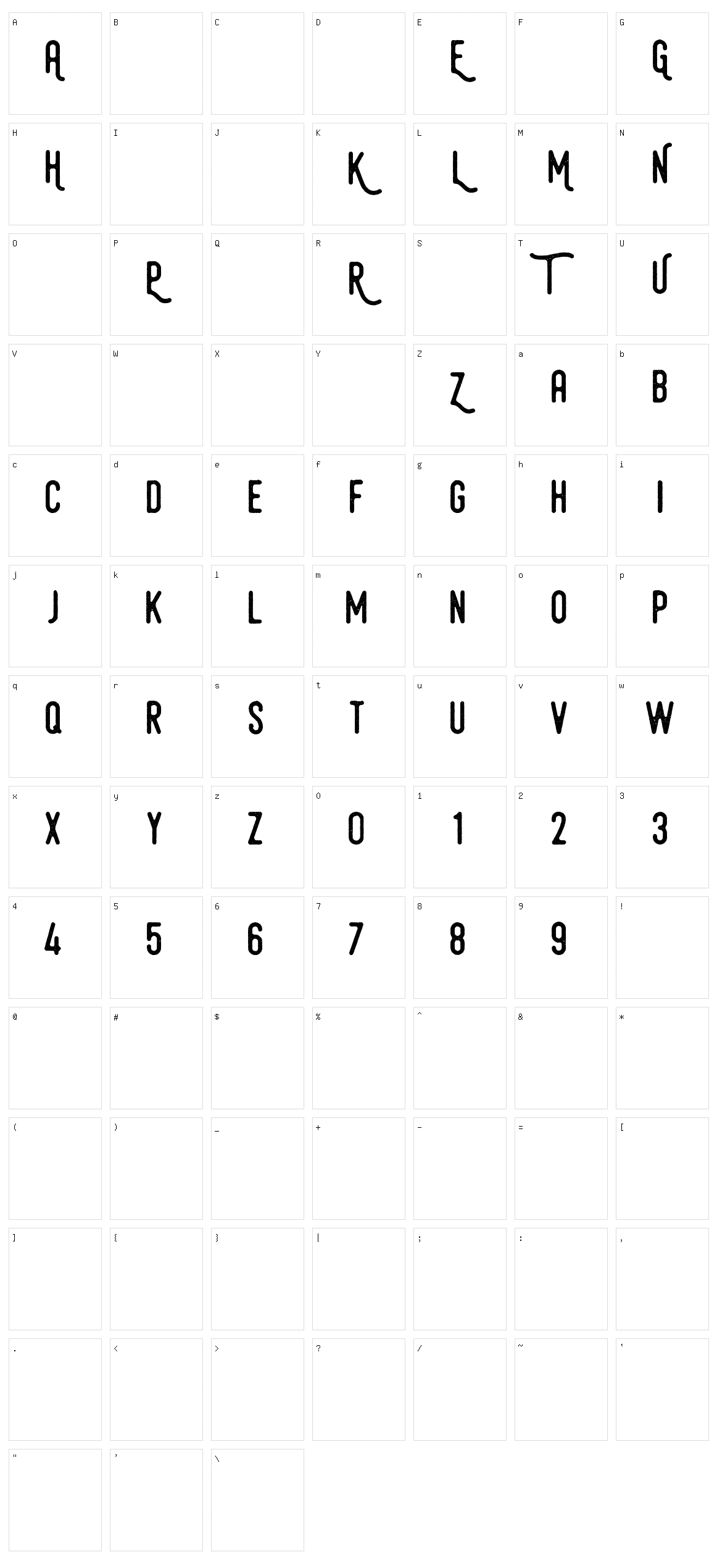
Opentype features ready with Stylistic Set, Contextual alternates. With Opentype features you can applied to logos, product, display, clothing, quotes and many more. You can applied to all typography with mix and match pairs of letters to fit your own designs.